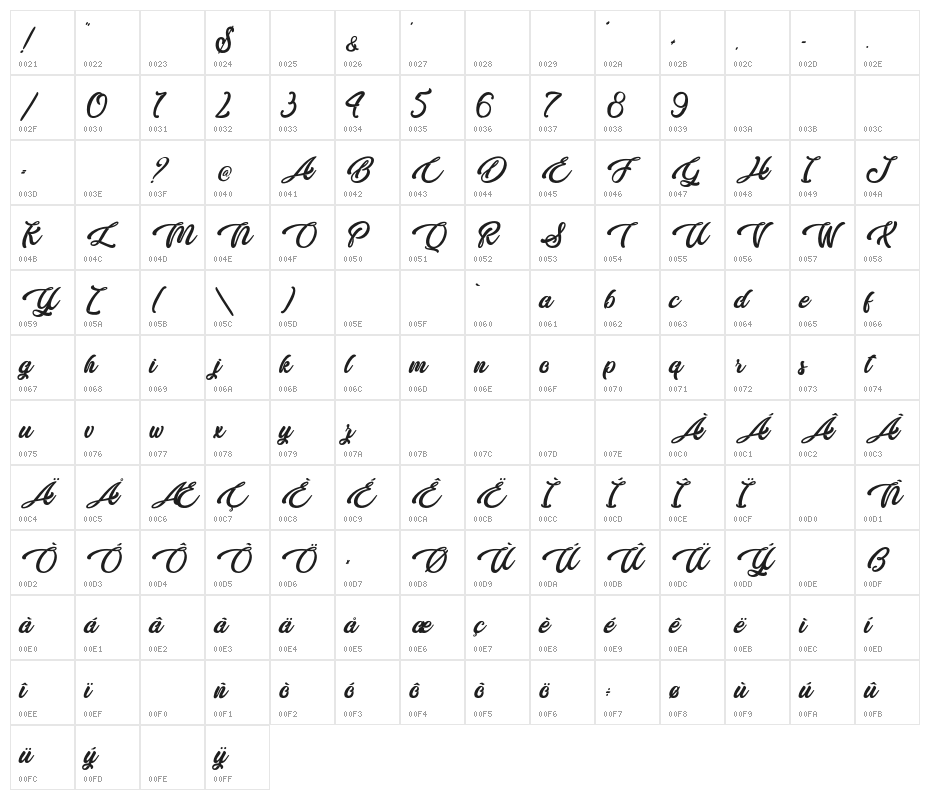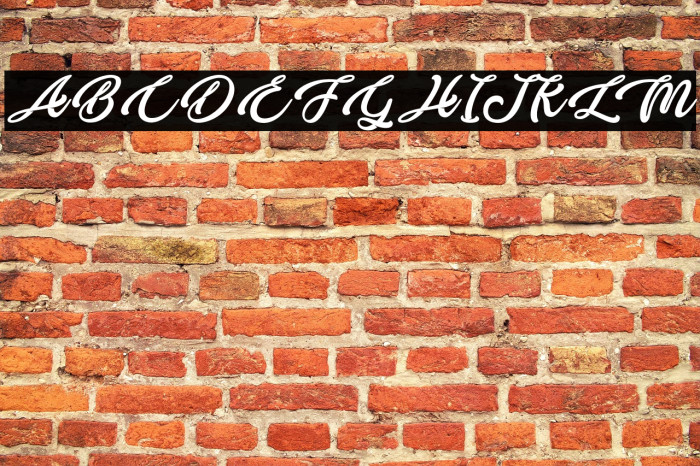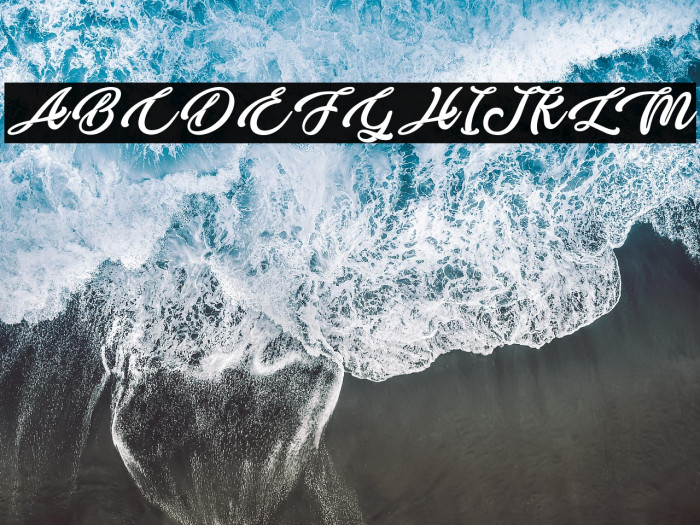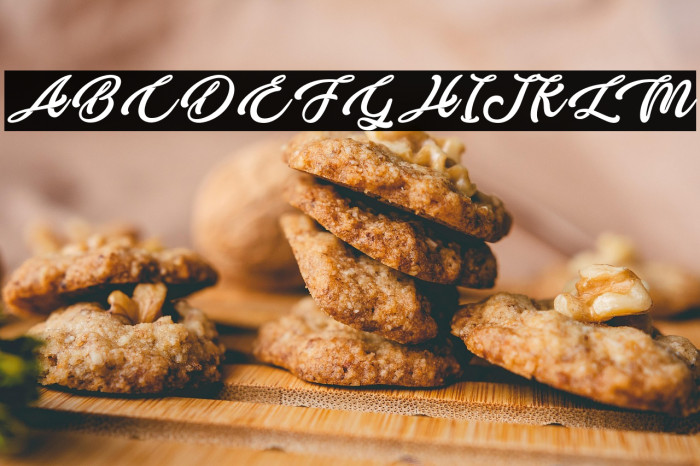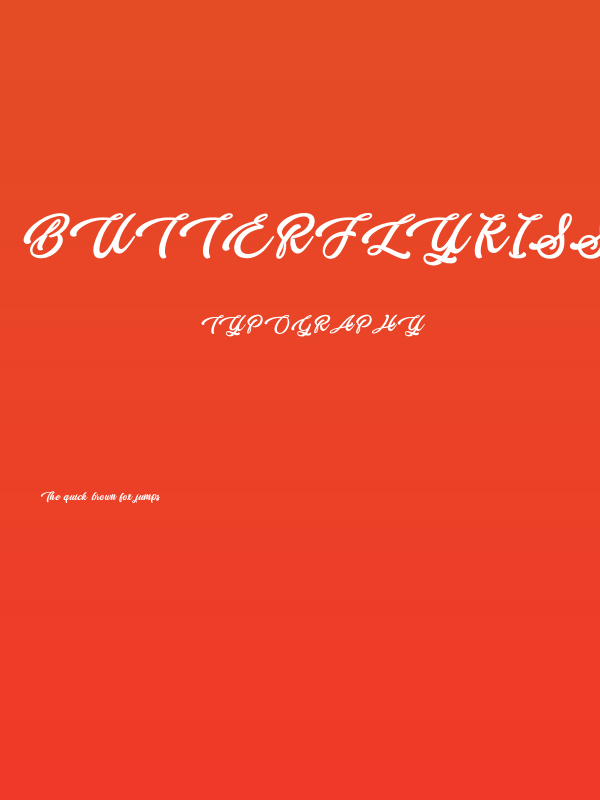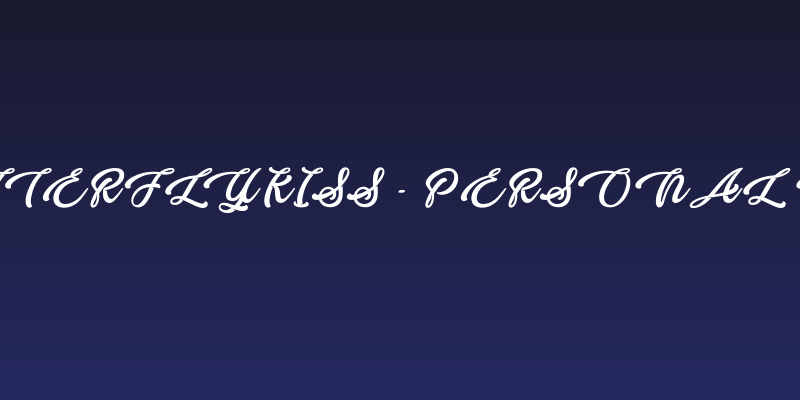
Butterfly Kiss - Personal Use Font
Butterfly Kiss - Personal Use Description
This font features a flowing, cursive style that exudes elegance and sophistication. The letters are interconnected, creating a seamless and fluid appearance. The uppercase letters are ornate with flourishes, while the lowercase letters maintain a consistent, smooth flow. The numerals are designed with a similar cursive flair, adding to the overall cohesive look. Special characters are thoughtfully integrated, maintaining the font's graceful aesthetic. This font is ideal for projects that require a touch of elegance and personal expression.
| Proposed Projects | Ideal for wedding invitations, greeting cards, personal branding, and elegant logo designs. |